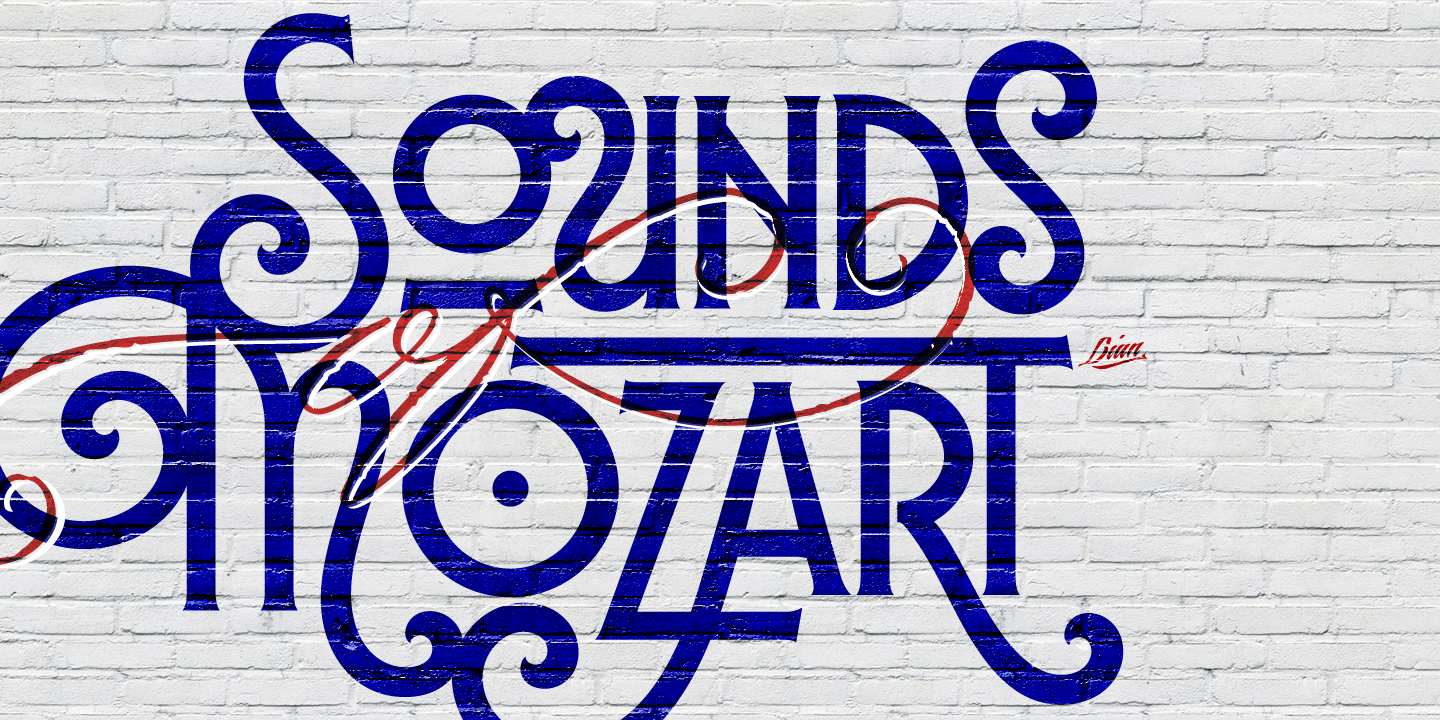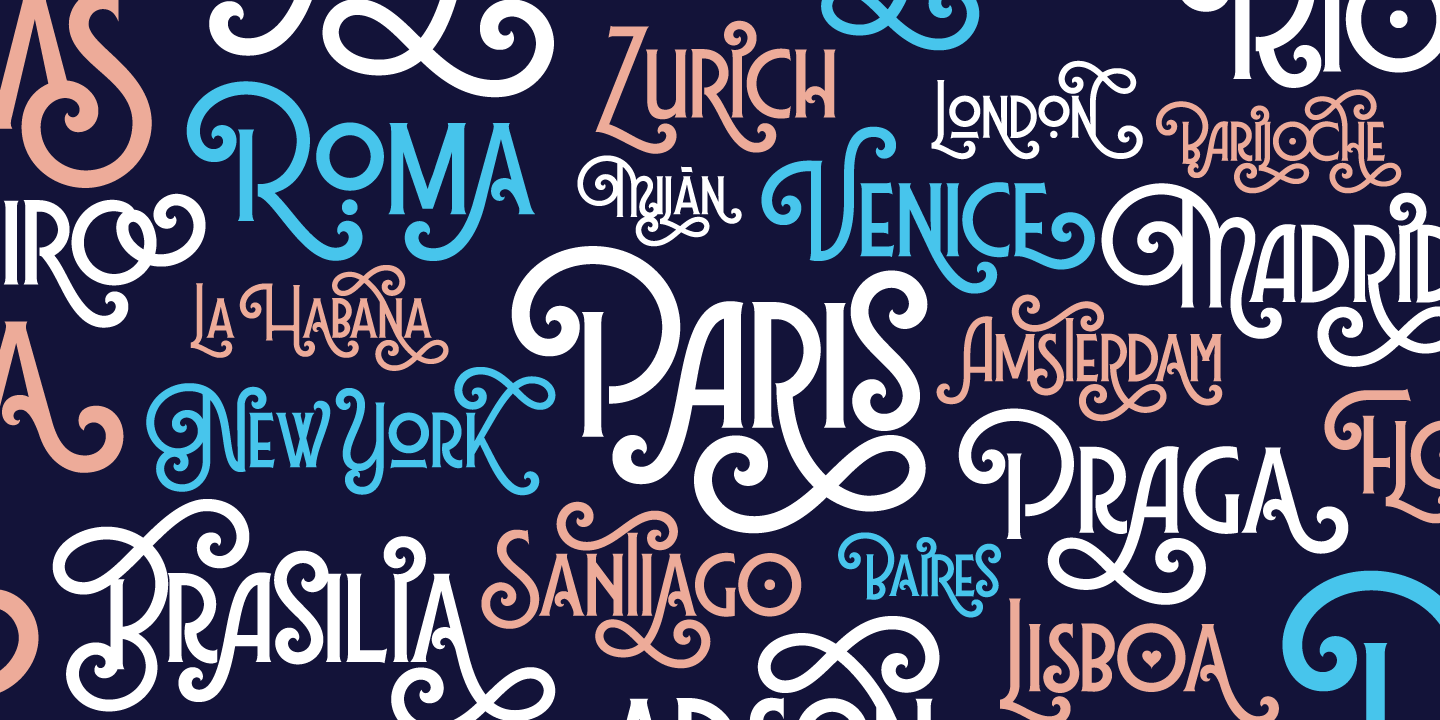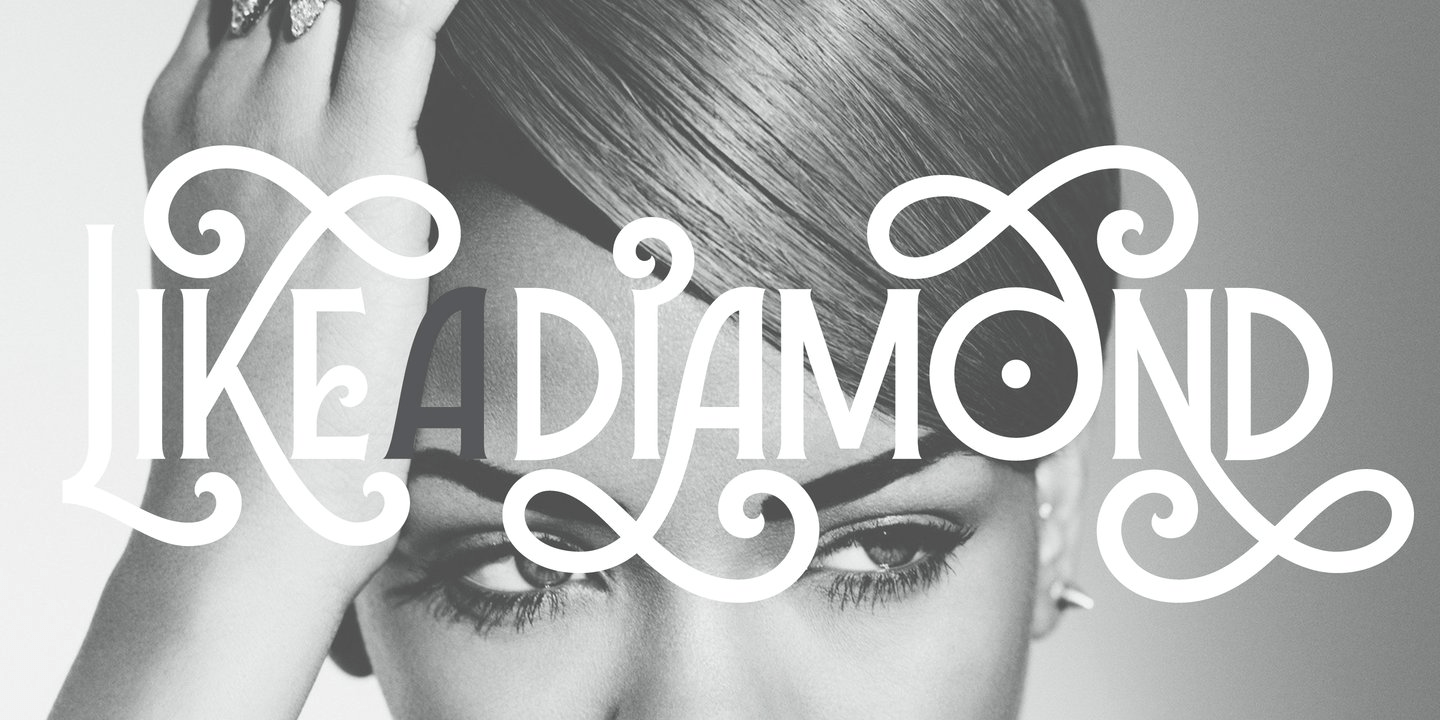
About Lubaline Font
Who haven\’t heard the phrase that \’any past time was better\’?. Although I sometimes find this phrase a little too pessimistic (because I try to think that the best is yet to come), it may be true regarding my passion, typography. I\’m too young (29) unfortunately,…